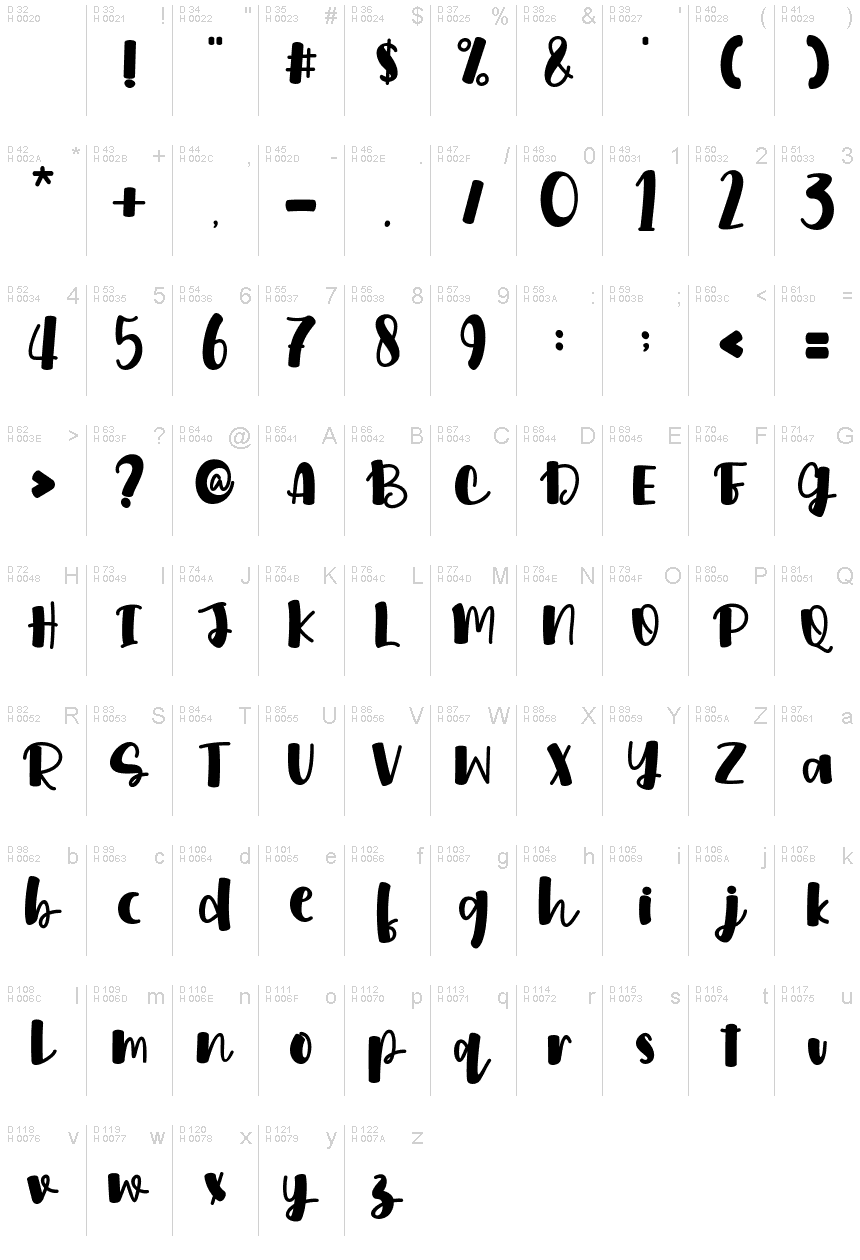
Sweet Aloha, the brainchild of font designer Stefani Letter, is a display font that perfectly captures the essence of a playful and fun-loving cartoon script. Bold and bubbly, it's perfect for designing eye-catching logos or creating marketing materials for children's products. With its wide range of weights, from light to bold, Sweet Aloha can be used in a variety of projects; from posters to packaging or greeting cards. The whimsical style and playful curves of this font will add a touch of personality to any design project you take on. Add some aloha spirit to your next project with Sweet Aloha!